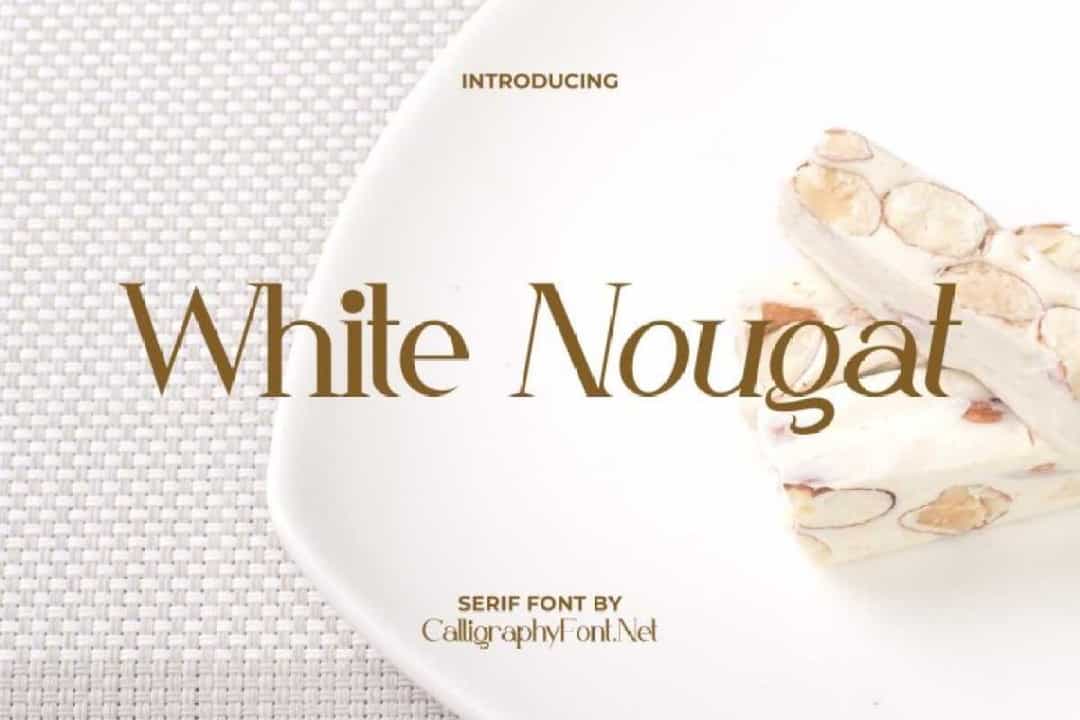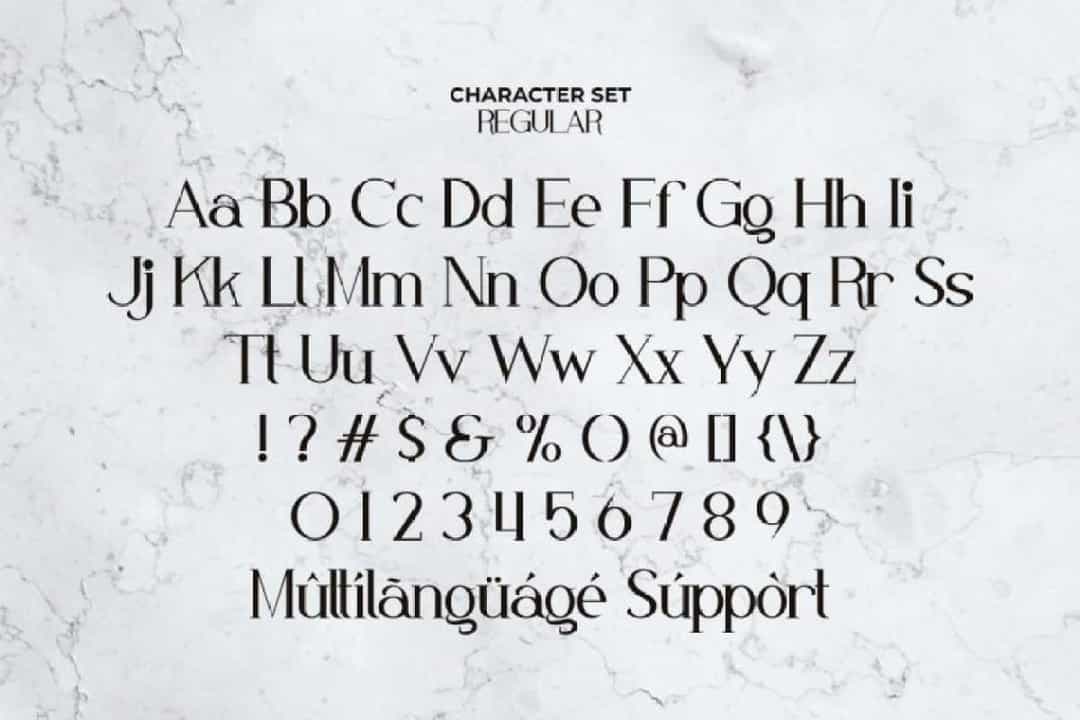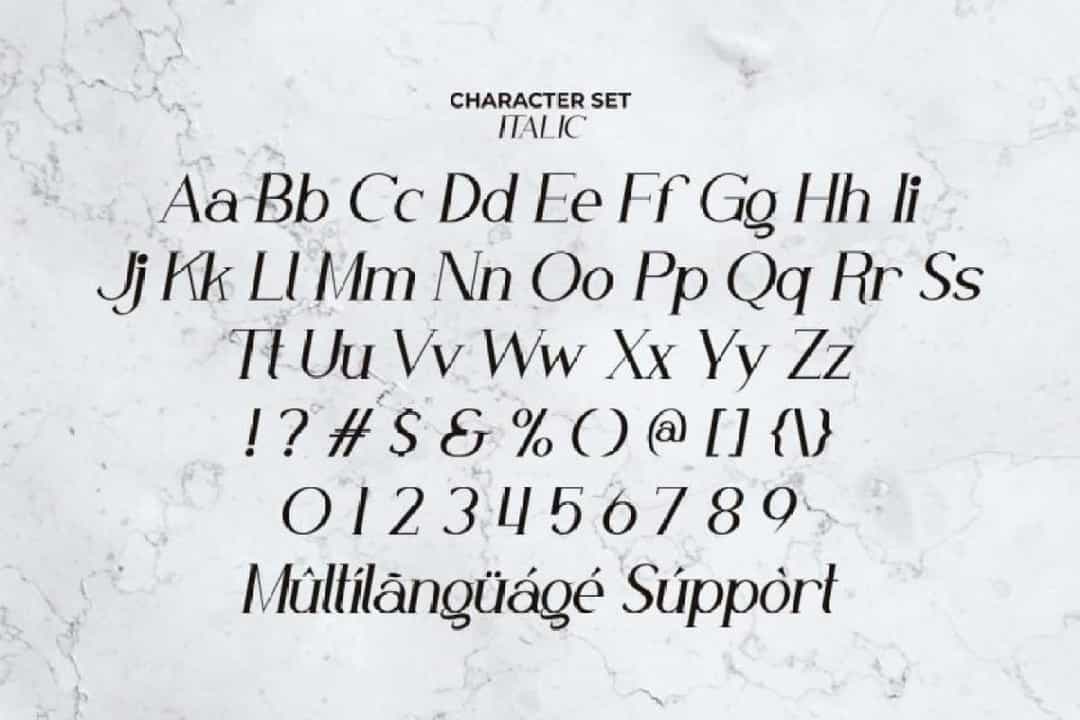
White Nougat is a serif font family of fonts featuring traditional and elegant characteristics. It makes an excellent font choice for logos, brandings and headlines as well as signage applications.